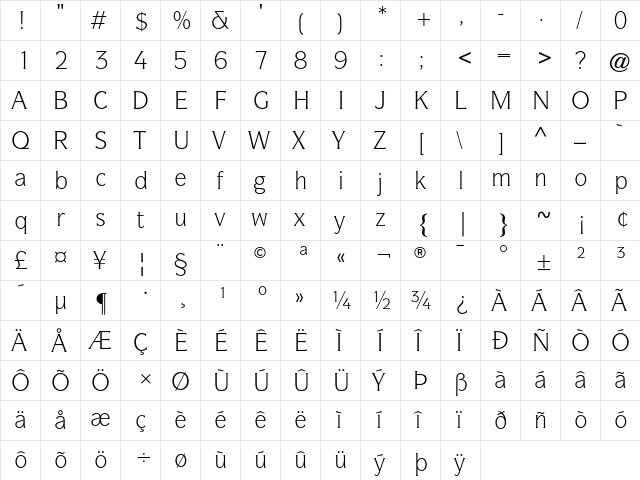
ITC Symbol Book
Design Context for ITC Symbol Typeface
ITC Symbol takes a measured approach to typography — its balanced proportions and neutral character make it a reliable workhorse for both digital and print work.
Pro Tip: Use ITC Symbol in both headline and body roles to test its range before committing to a single application.